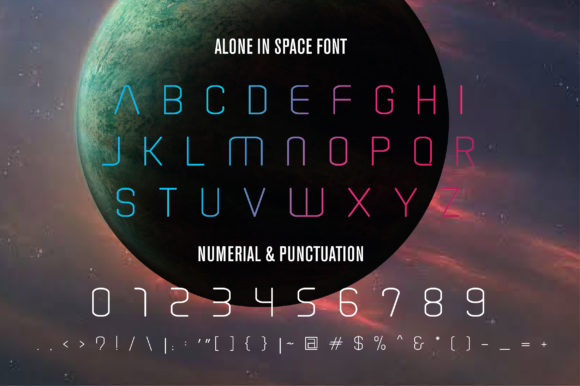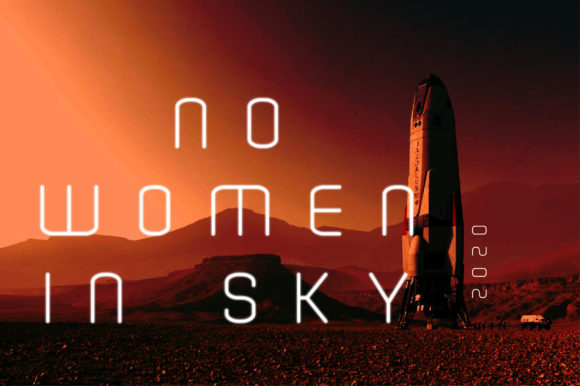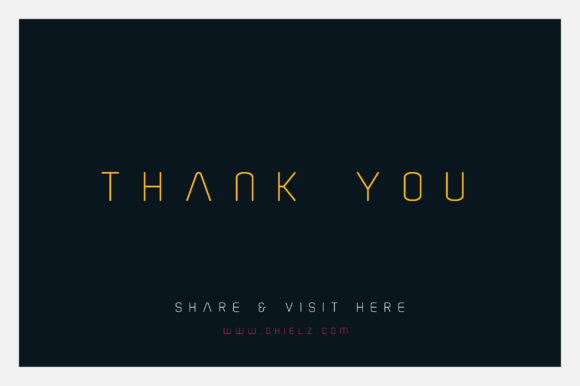
I’ll never forget the frustration of working on a project, hours pouring into the design, and then getting stuck on one thing: the font. It was for a futuristic-themed craft project, and I needed something that screamed “space age” without being too over-the-top. That’s when I stumbled upon Alone in Space, a modern, minimal, and clean font family that has since become a staple in my design toolkit.
First Impressions: A Modern Classic
Alone in Space is more than just a font; it’s a statement. With its uppercase letters, numbers, and punctuation, it exudes a sense of sleekness and sophistication. What I love about it is its versatility – despite its distinctly futuristic appearance, it can easily be used for non-sci-fi purposes as well. The font comes in two versions: regular and bold, giving you flexibility depending on your design needs.
- ✨ Modern and Minimalist Design: Perfect for projects that need a clean, contemporary look.
- ✅ Versatility: Suitable for a wide range of projects, from sci-fi to more traditional designs.
While Alone in Space is a fantastic font, there are a few things to keep in mind:
- 🤔 Limited Character Set: As with many display fonts, the character set might be limited compared to more comprehensive font families.
- ⚠️ Legibility at Small Sizes: Like many minimalist fonts, it might lose legibility when used at very small sizes.
The Story Behind Alone in Space
While the origins of Alone in Space might not be well-documented, it’s easy to imagine a designer inspired by the vastness of space and the sleek lines of modern technology. Perhaps they sought to create a font that felt both futuristic and accessible, suitable for a wide range of creative projects.
| Font Name | Alone in Space Font |
| Author | AwesomeGraphic |
Q: Is Alone in Space suitable for body text?
A: While it’s primarily designed as a display font, it can be used for short paragraphs of body text. However, for longer texts, a more traditional font might be more readable.
Q: Does Alone in Space support OpenType features?
A: Yes, it does. You can take advantage of OpenType features in compatible software like Adobe Photoshop and Illustrator to add more variety to your typography.